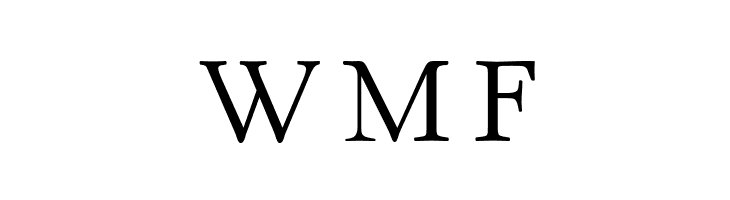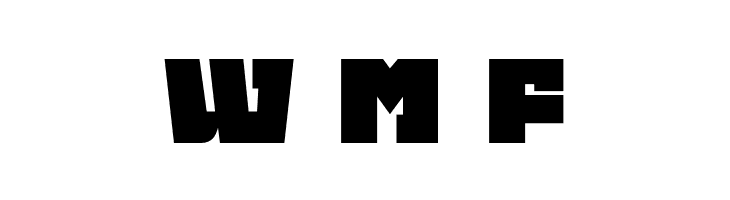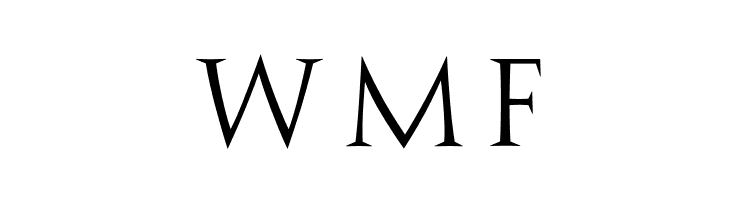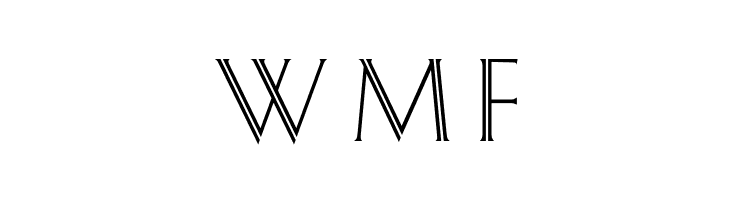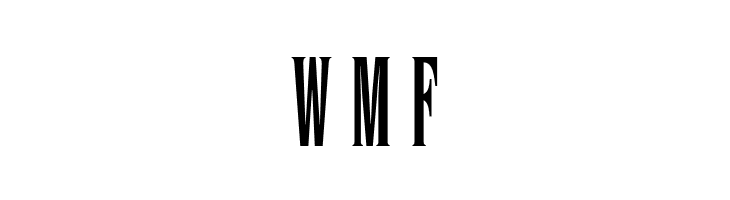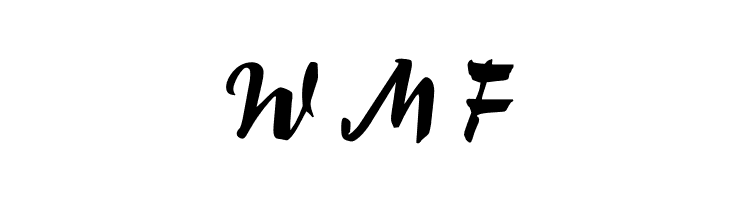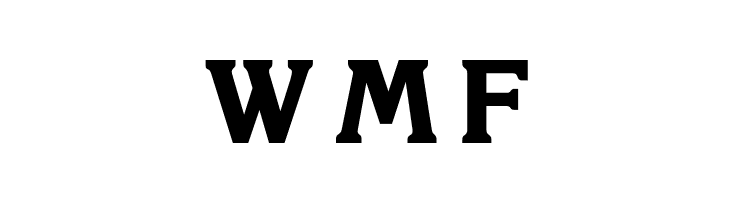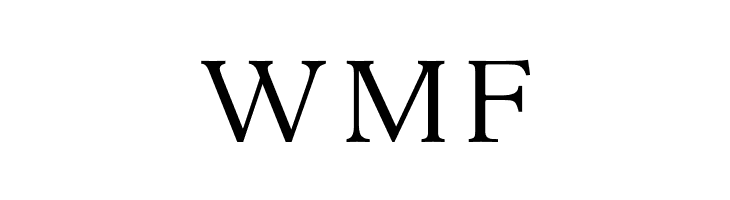
A classic serif font with elegant details and balanced proportions.
A bold, geometric font with thick, uniform strokes and rounded edges.
A classic serif font with elegant lines and refined curves.
An elegant serif font with a classic italic style and moderate contrast.
An elegant, Art Deco-inspired font with geometric shapes and clean lines.
A bold, geometric font with thick strokes and strong visual impact.
A bold, high-contrast serif font with elongated characters for dramatic impact.
A dynamic, cursive script font with a personal and artistic touch.
A bold, serif font with strong strokes and a classic yet modern appeal.
A classic serif font with elegant, thin strokes and a timeless appearance.